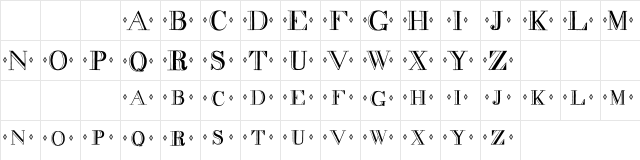
decadence Regular
Design Context for decadence Typeface
decadence is a composed and adaptable typeface that performs quietly and consistently across a wide range of design contexts.